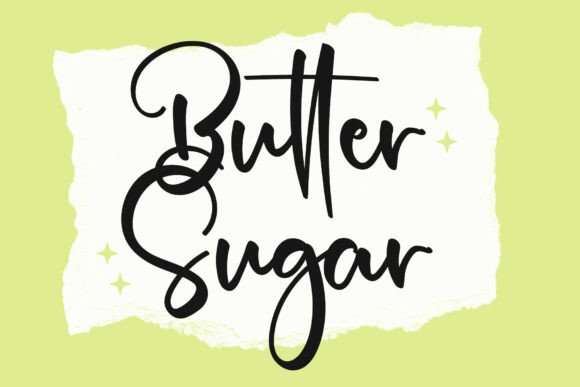
The Sweet Spot: Discovering Butter Sugar Font
I’ll never forget the moment I stumbled upon Butter Sugar, a whimsically charming handwritten script font that has since become a staple in my design toolkit. I was working on a dessert menu for a trendy new cafe, and I was struggling to find the perfect font that would convey the warmth and coziness of their brand. The client wanted something elegant, yet playful – a font that would make their menu look like a sweet treat in itself. That’s when I discovered Butter Sugar, and it was love at first sight! ✨
So, what makes Butter Sugar so special? Here are a few things I absolutely adore about this elegant script font:
• ✨ Smooth, flowing strokes that give it a warm and inviting feel
• ✅ Perfect blend of playfulness and sophistication, making it suitable for a wide range of design projects
• 💫 Highly legible, even at smaller font sizes
• 🎨 Extensive OpenType features, including glyphs and stylistic alternates, which give you plenty of creative freedom
Of course, no font is perfect, and Butter Sugar has a few minor quirks to keep in mind:
• 🤔 Some users might find the font a tad too ornate for very formal or corporate designs
• ⚠️ Limited use of uppercase letters, which might be a consideration for certain projects
The Story Behind Butter Sugar
While the true story behind Butter Sugar remains a mystery, it’s easy to imagine that the designer was inspired by the warmth and joy of childhood treats. Perhaps they spent hours watching their grandmother bake sweet goodies in the kitchen, surrounded by the enticing aromas of sugar and butter. Whatever the inspiration, the result is a font that’s equal parts playful and elegant – a true gem for designers and crafters alike.
Can I use Butter Sugar for my branding and logo design? Absolutely! Butter Sugar’s unique blend of playfulness and elegance makes it an excellent choice for logos, branding, and other design projects.
Does Butter Sugar support OpenType features? Yes, Butter Sugar comes with a range of OpenType features, including glyphs and stylistic alternates, which allow you to add extra flair to your designs.
Is Butter Sugar easy to read? Yes, despite its ornate feel, Butter Sugar is highly legible, even at smaller font sizes, making it suitable for a wide range of design applications.